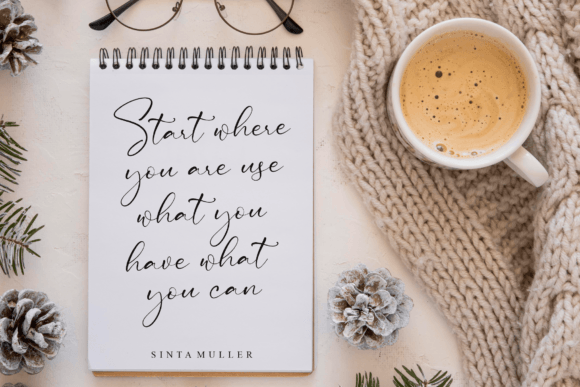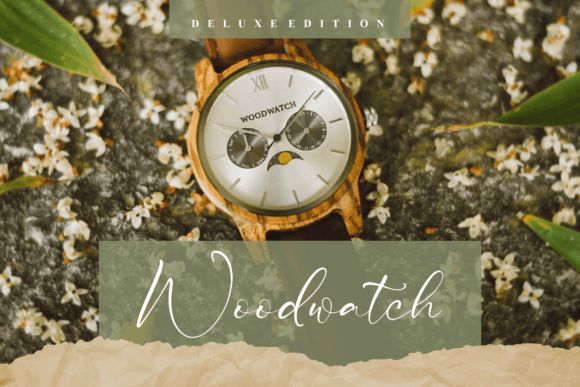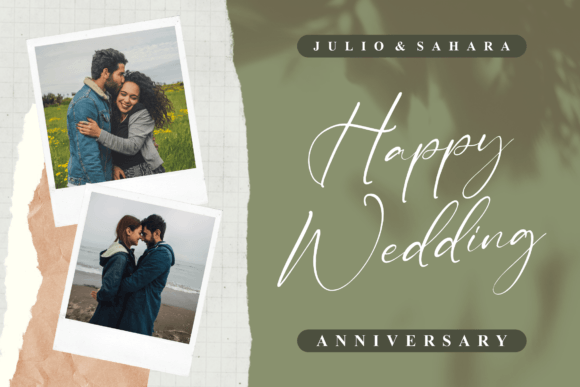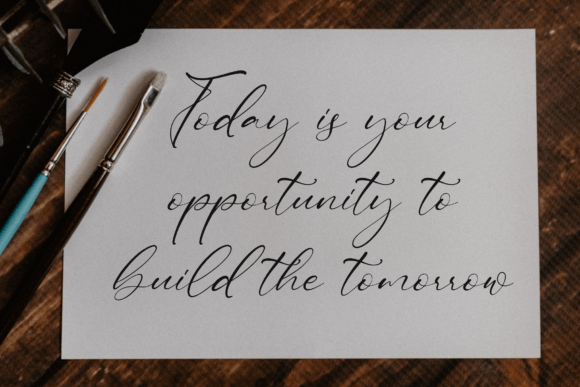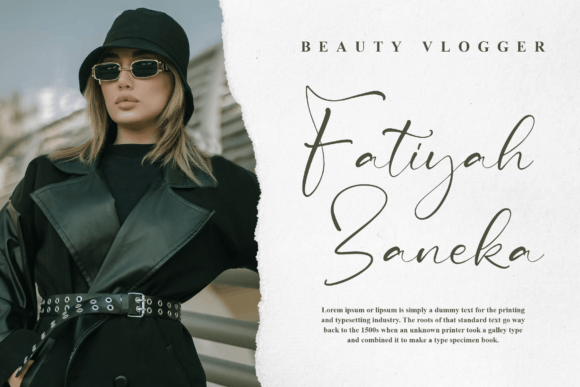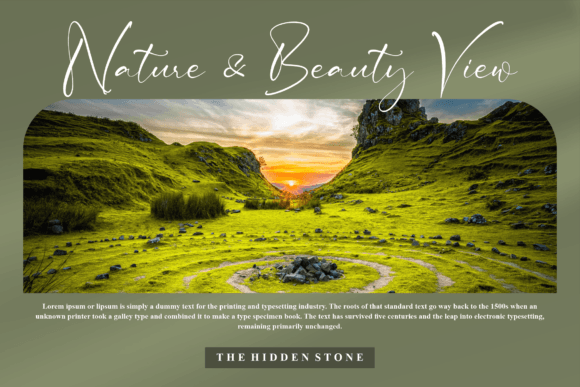
Introduction to Rosehill Mitalia Font
Rosehill Mitalia is a sweet and cursive handwritten signature script font.
This gentle font will look gorgeous on a variety of design ideas It will add a joyful and romantic touch to each of your projects.
Rosehill Mitalia Font offers exceptional quality and versatility, making it a valuable addition to your design toolkit. Whether you’re creating for personal projects or commercial use, Rosehill Mitalia Font delivers professional results.